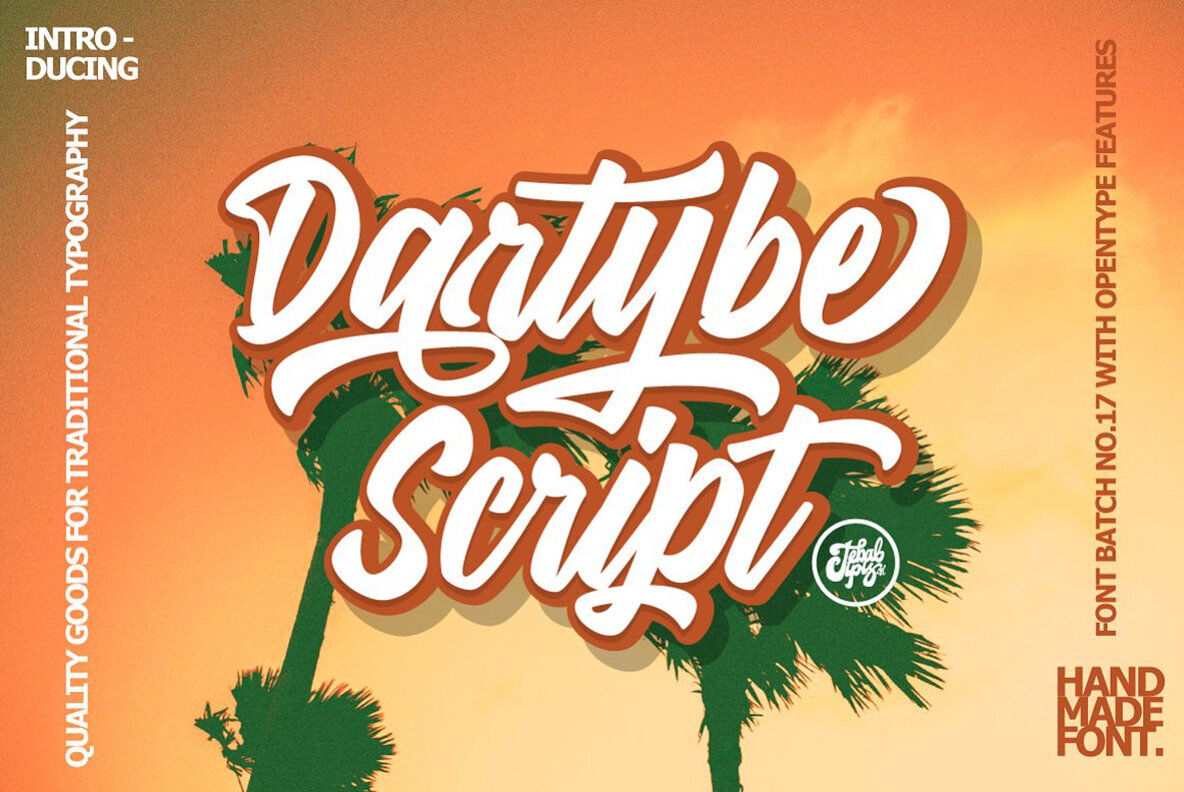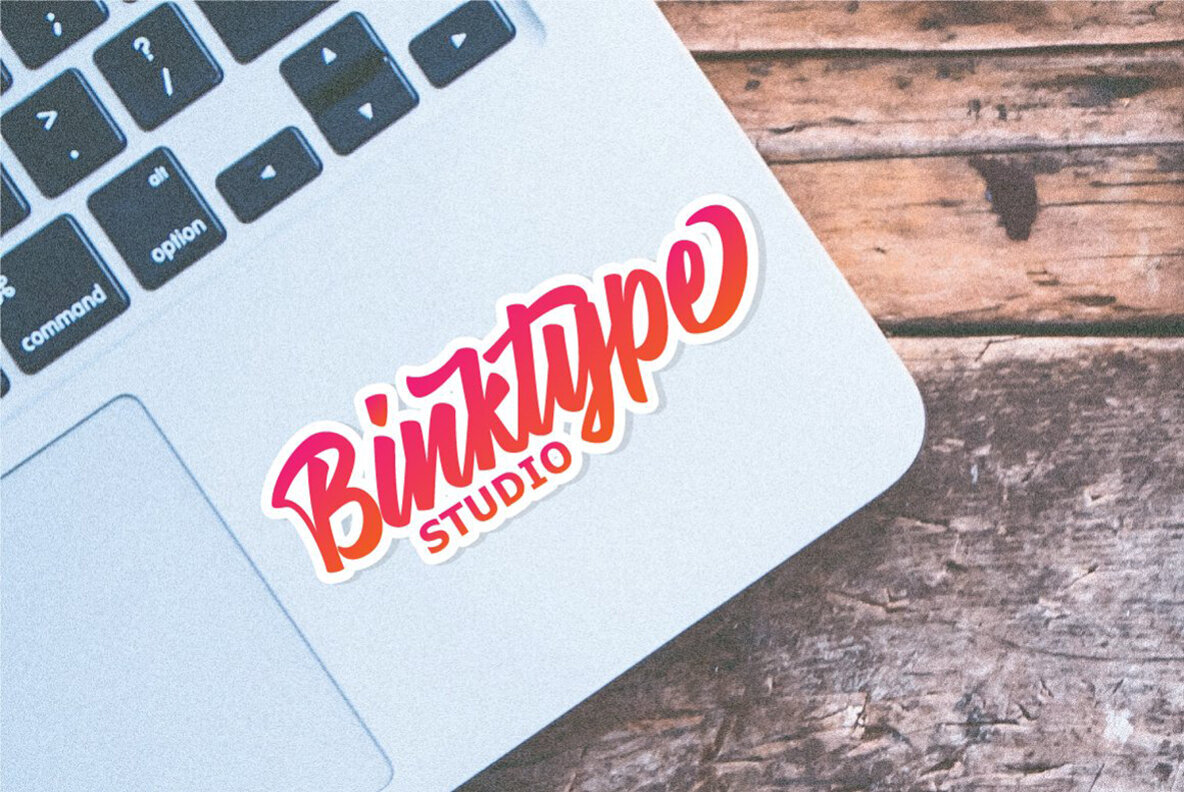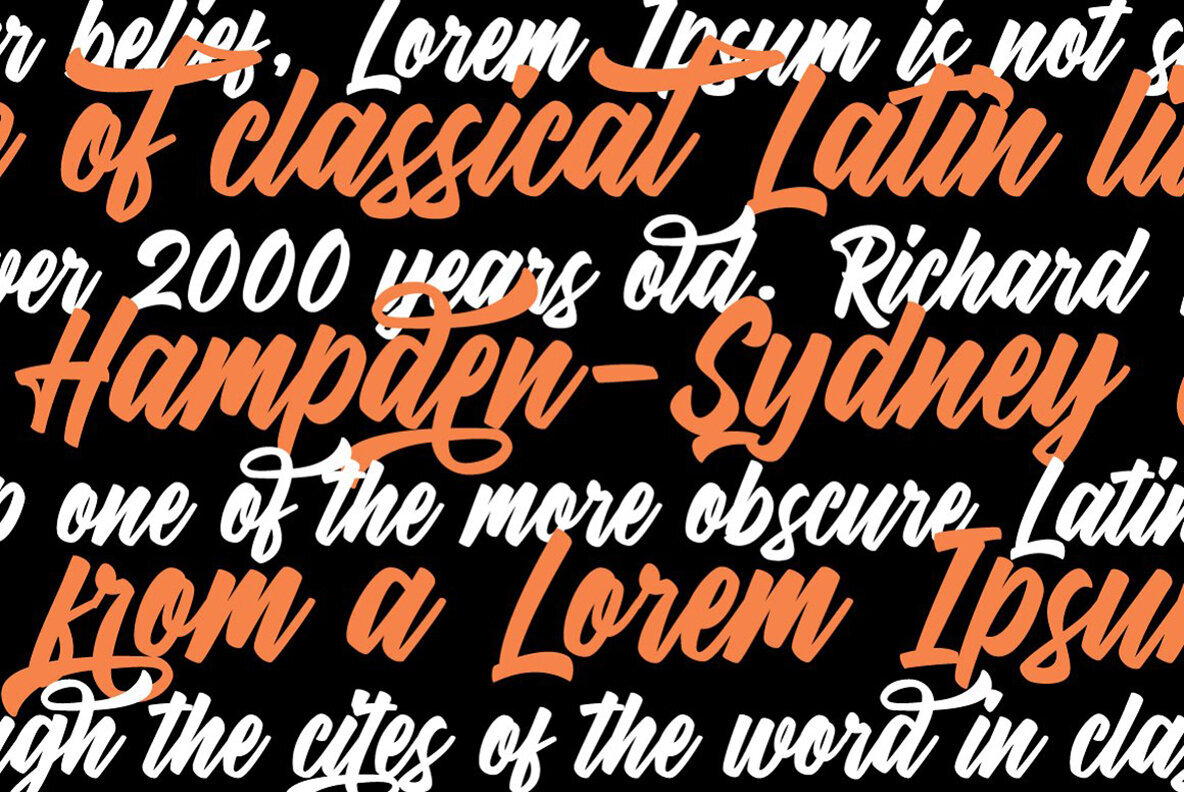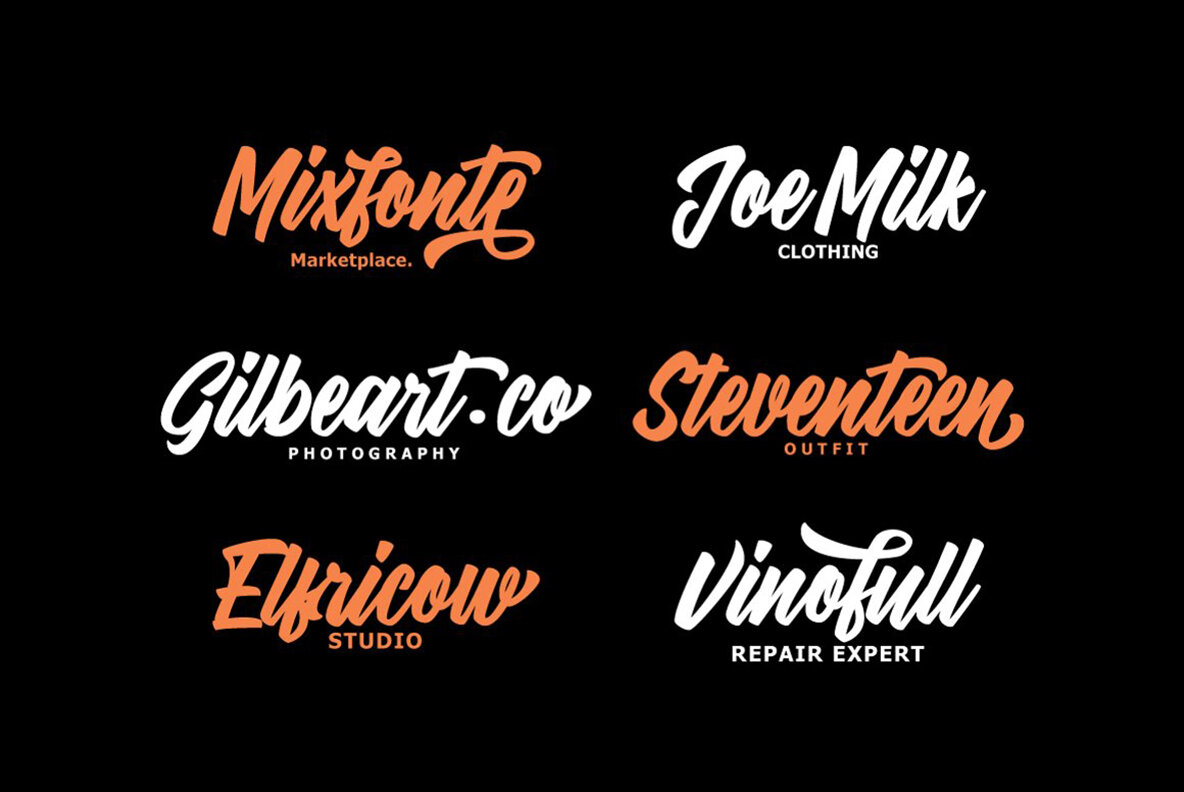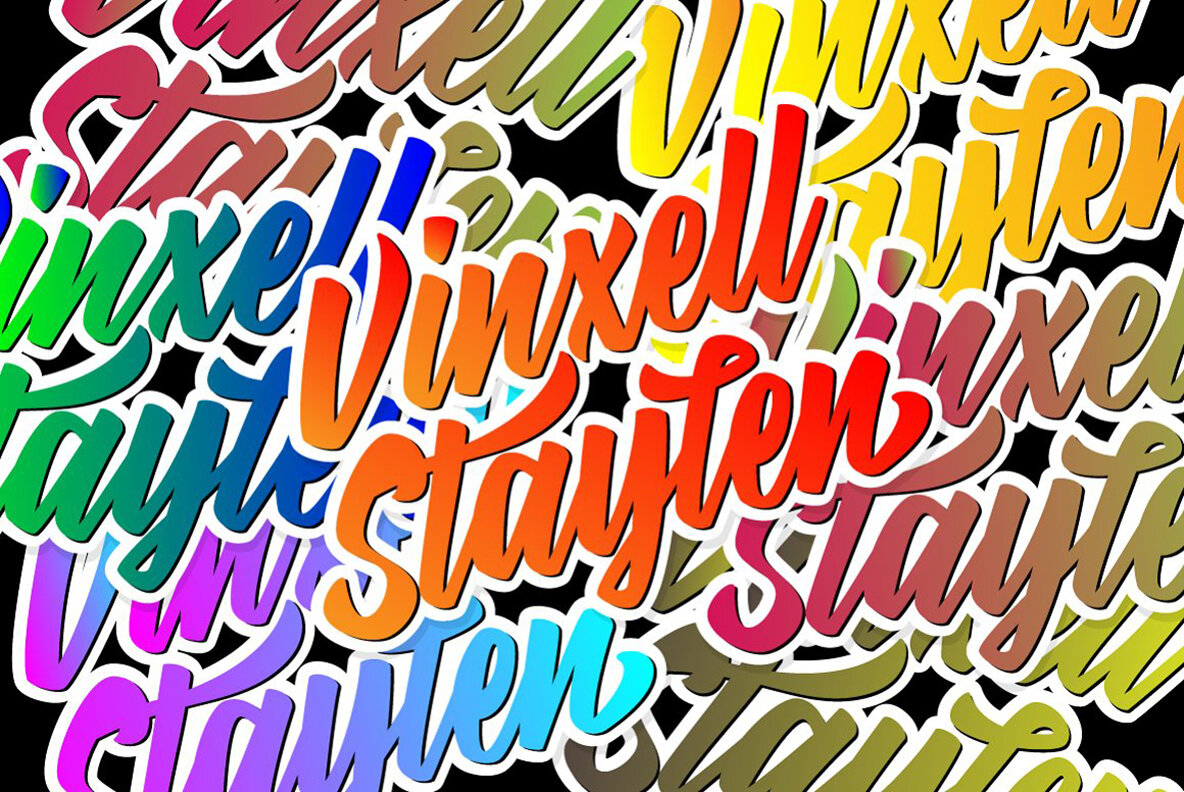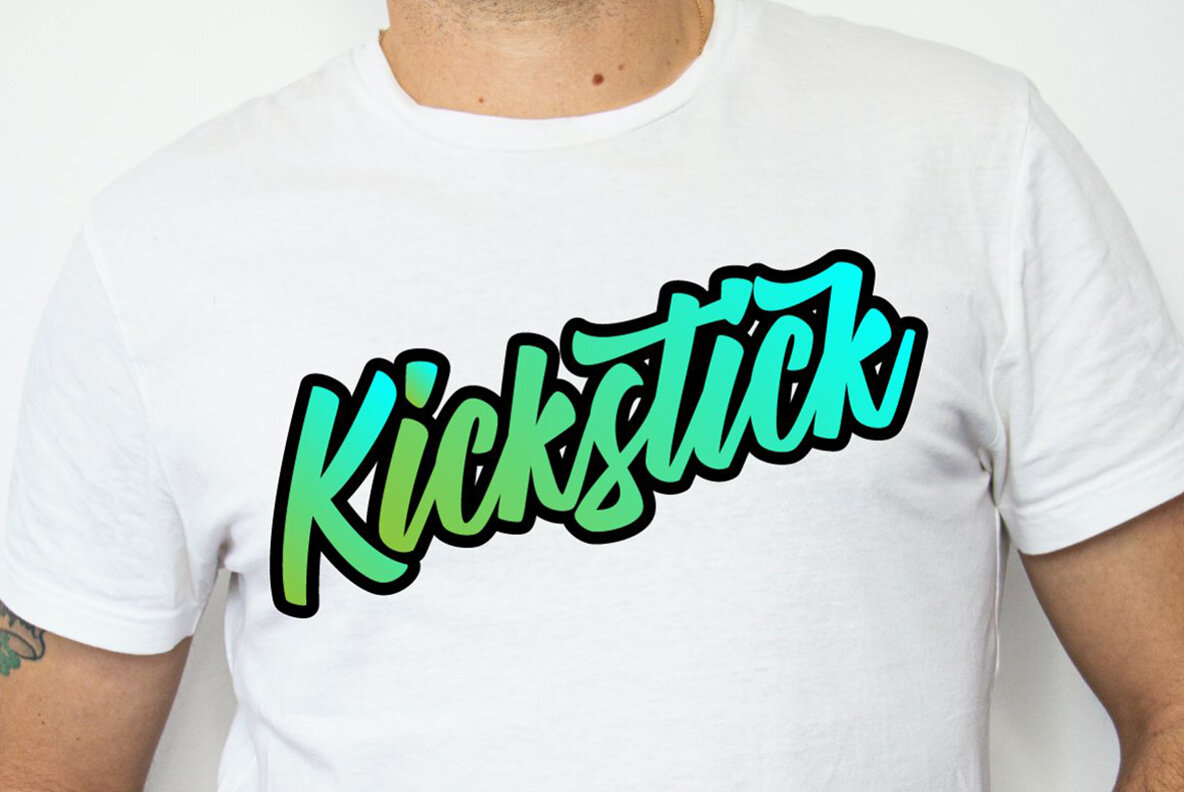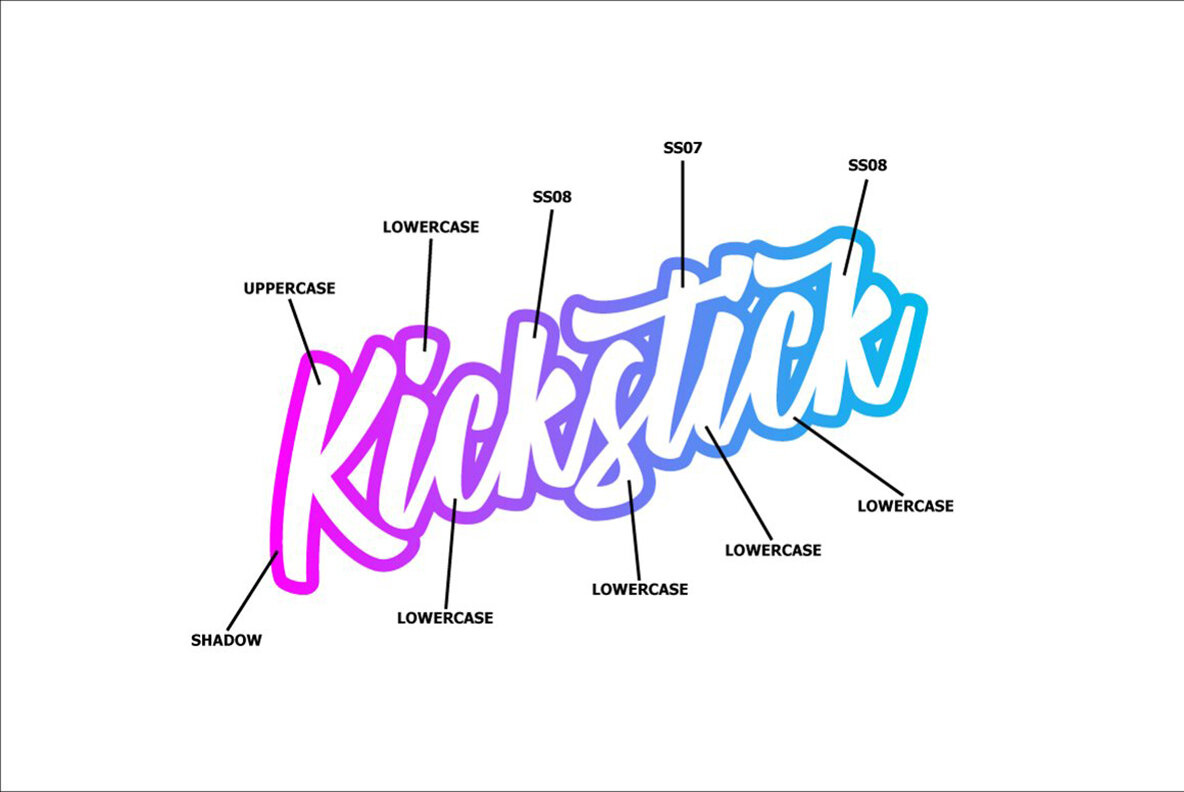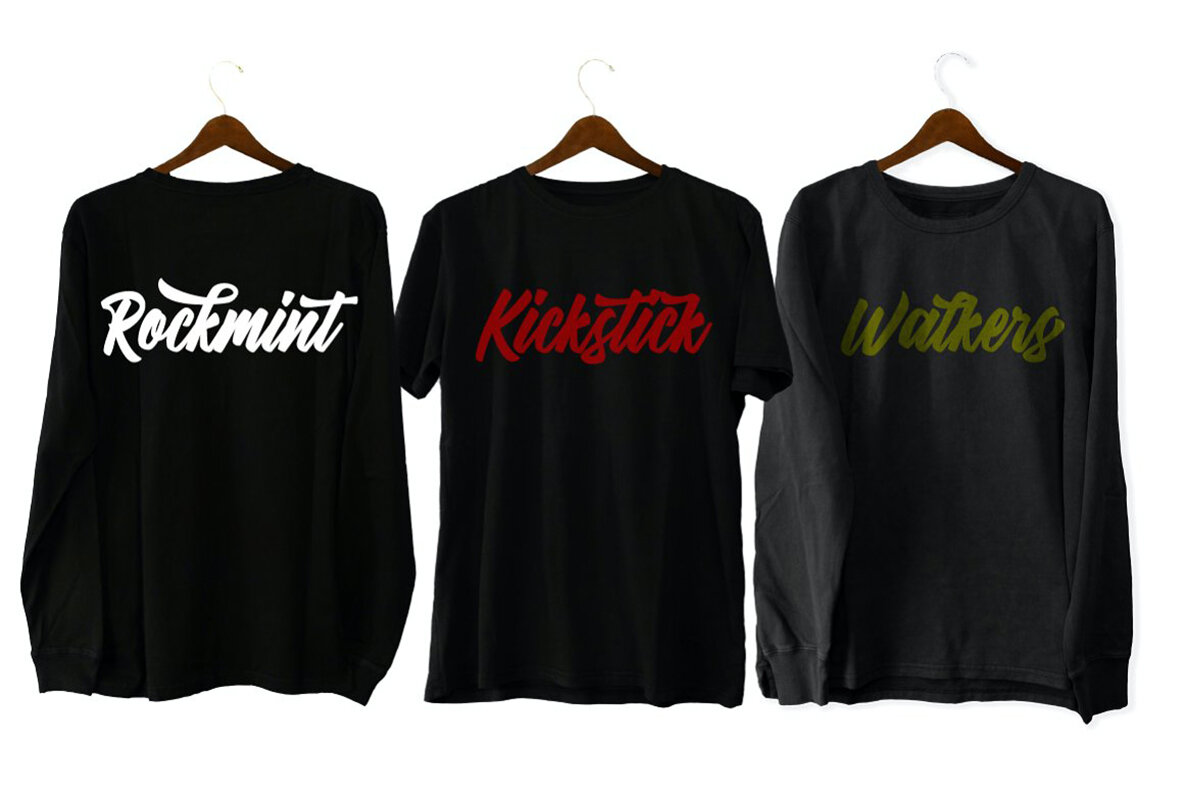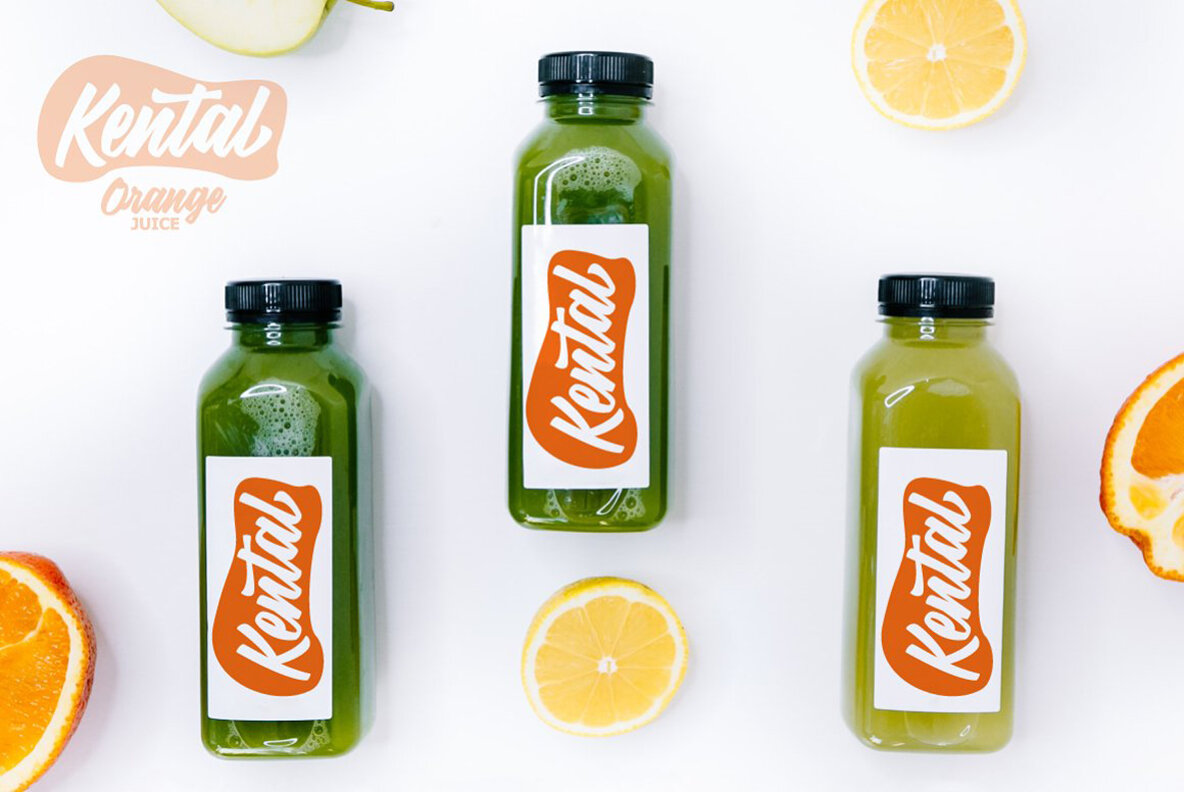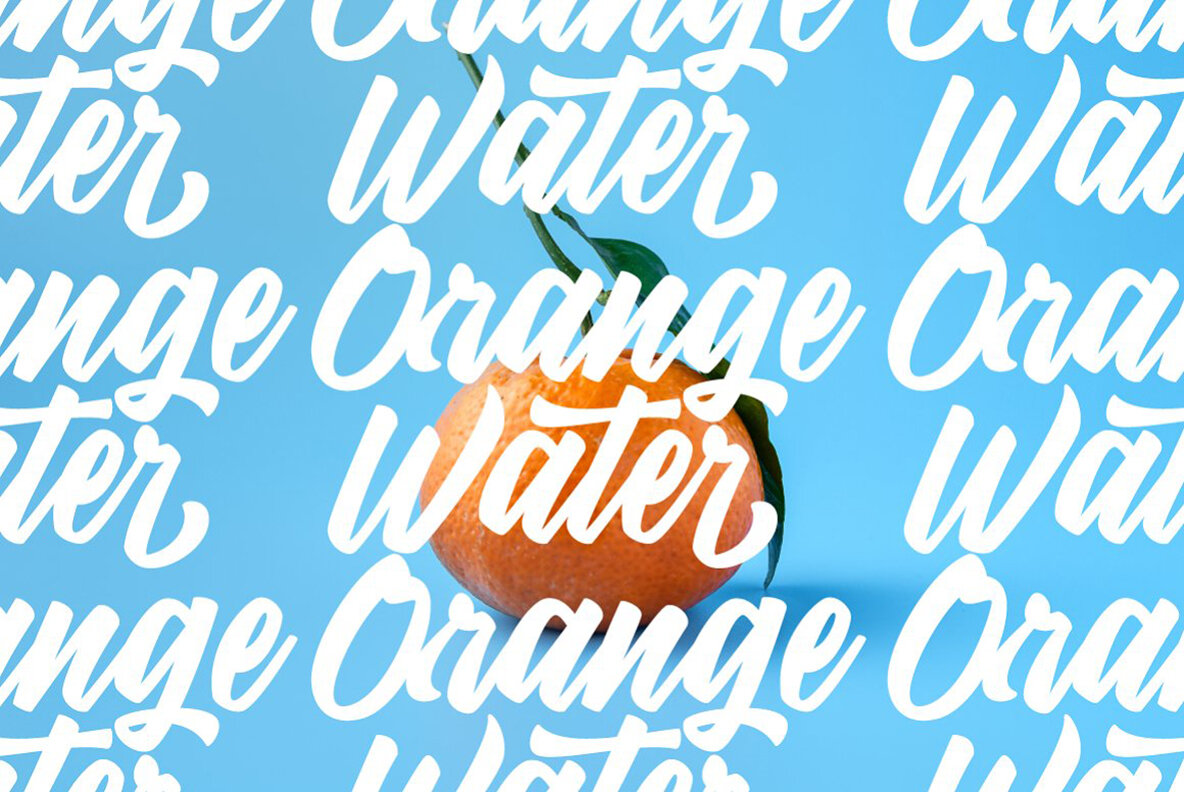
Dartybe Font
Dartybe Script
Dartybe is a distinctive script typeface, ideal for adding character to logos, badges, insignias, packaging, headlines, posters, and more. Its unique design makes it a versatile choice for various creative projects, offering a touch of personality to each application.
This typeface includes alternative characters accessible through OpenType features. These are categorized into Stylistic Alternates, Stylistic Sets, and Ligatures, providing flexibility and variety in your designs. You can access these features using OpenType-compatible programs like Adobe Illustrator, Adobe Photoshop, and Adobe InDesign. Enhance your design projects with Dartybe and explore the myriad of possibilities it offers with its rich character set.